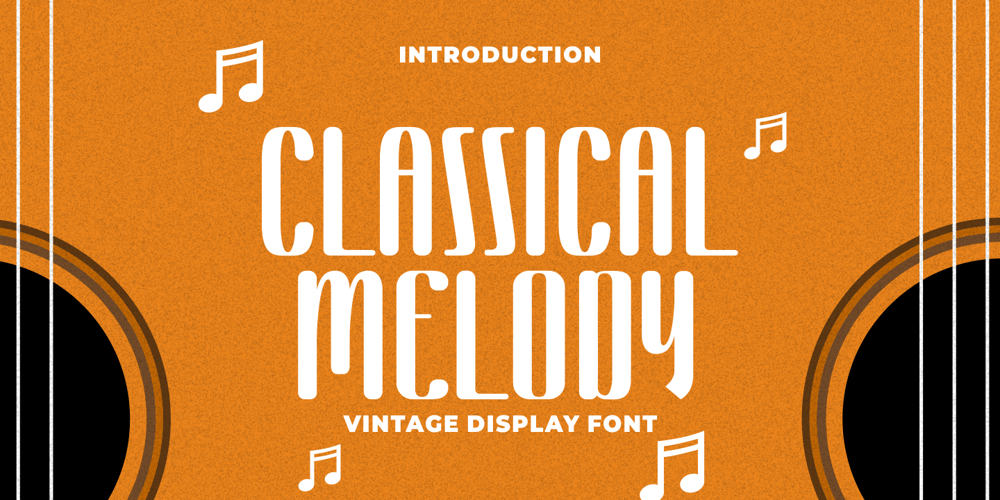
Classical Melody
Classical Melody font
Classical Melody Font Family was designed by Putra Novembria Candra Kusuma and published by Putracetol. Classical Melody contains 1 styles and family package options. Classical Melody – Vintage Display Font. Classical Melody is a family Sans Serif font designed with vintage handcrafted, Classical Melody is a tall and skinny font perfect for your home decor and display designsClassical Melody inspired by music design, Classical Melody is a vintage font that is perfect for story books, illustrations, comic books, t-shirts, posters, greeting cards, logos, branding, stickers, svg, crafting and all for display purposes.The alternative characters were divided into several Open Type features such as Swash, Stylistic Sets, Stylistic Alternates, Contextual Alternates, and Ligature. The Open Type features can be accessed by using Open Type savvy programs such as Adobe Illustrator, Adobe InDesign, Adobe Photoshop Corel Draw X version, And Microsoft Word. This font is also support multi language.